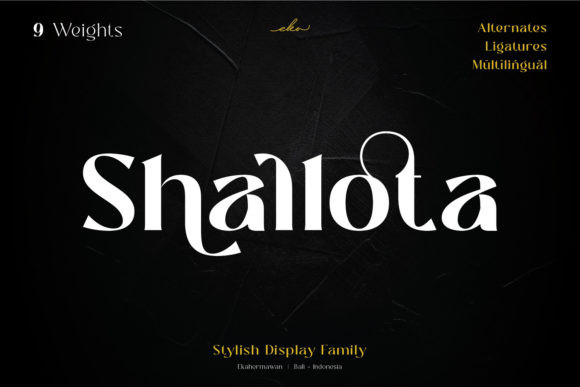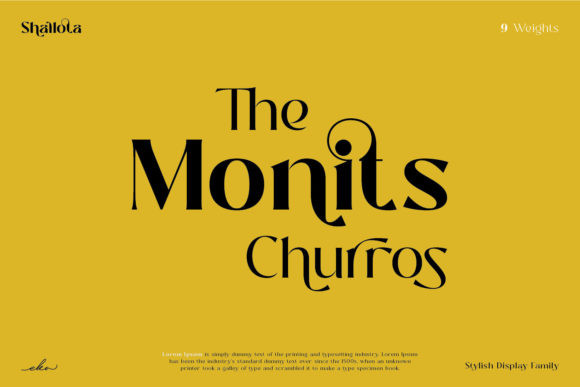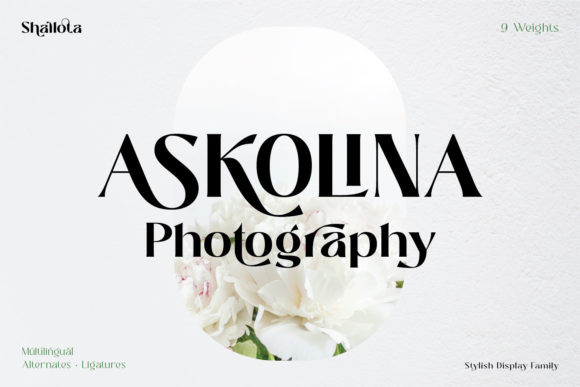
Shallota Font
Shallota is an elegant, bold and stylish display font. It is defined by a smooth vibe and is perfect for fashion branding or editorial designs. Shallota is PUA encoded which means you can access all of the glyphs and swashes with ease!